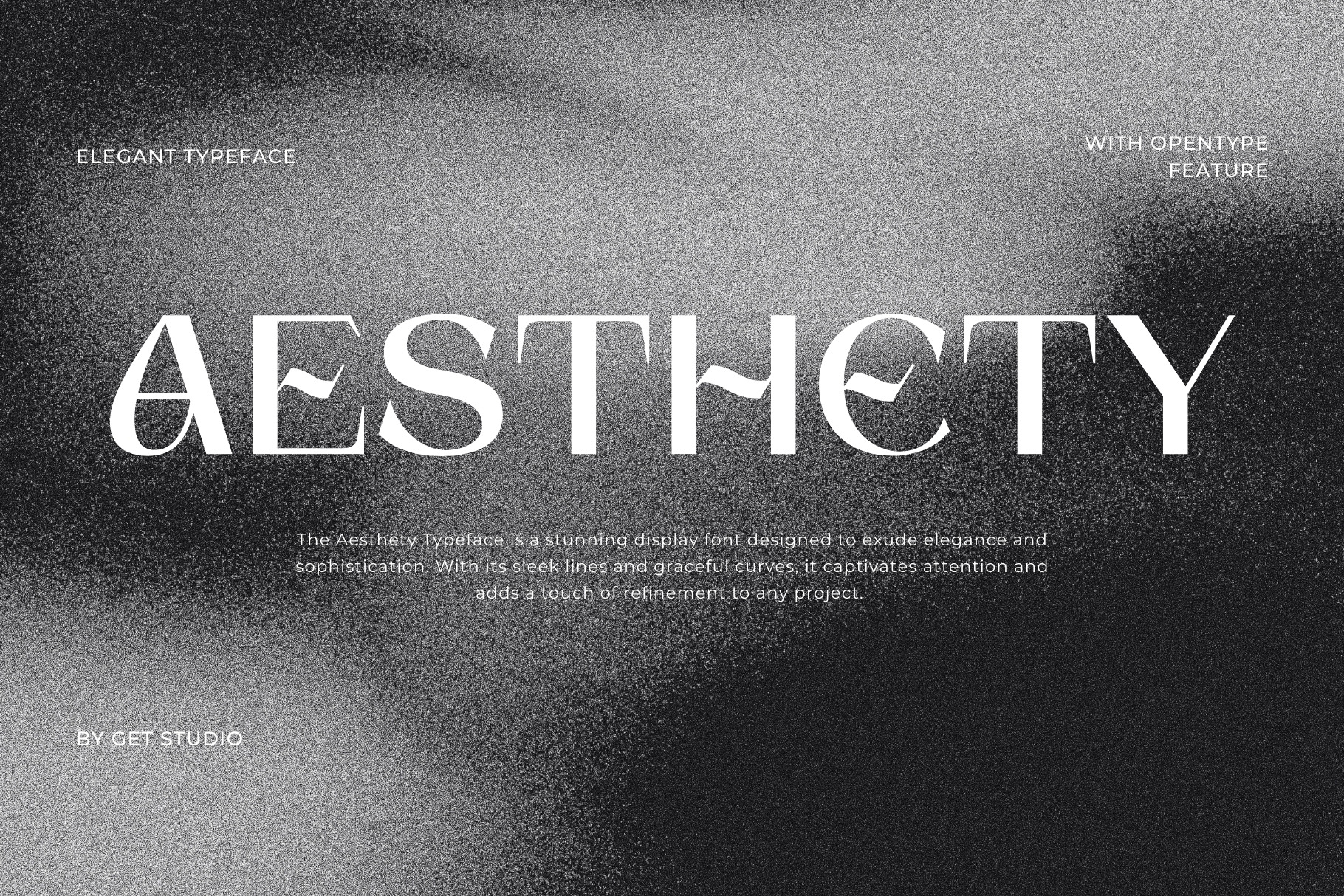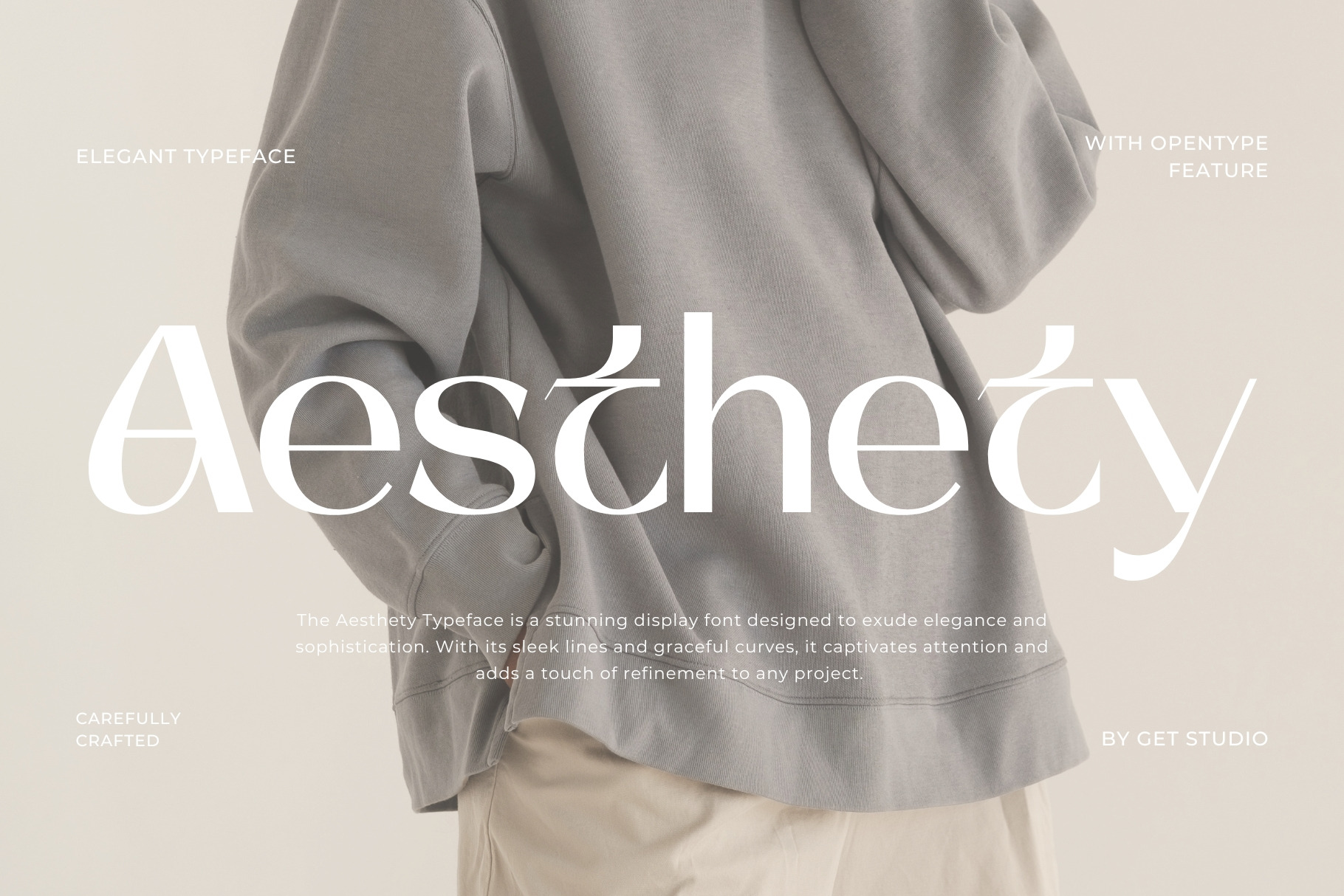
Aesthety Typeface
The Aesthety Typeface is a stunning display font designed to exude elegance and sophistication. With its sleek lines and graceful curves, it captivates attention and adds a touch of refinement to any project.
Whether used for branding, headlines, or invitations, this font effortlessly combines style and legibility, making it a versatile choice for those seeking to elevate their designs with a touch of aesthetic charm.